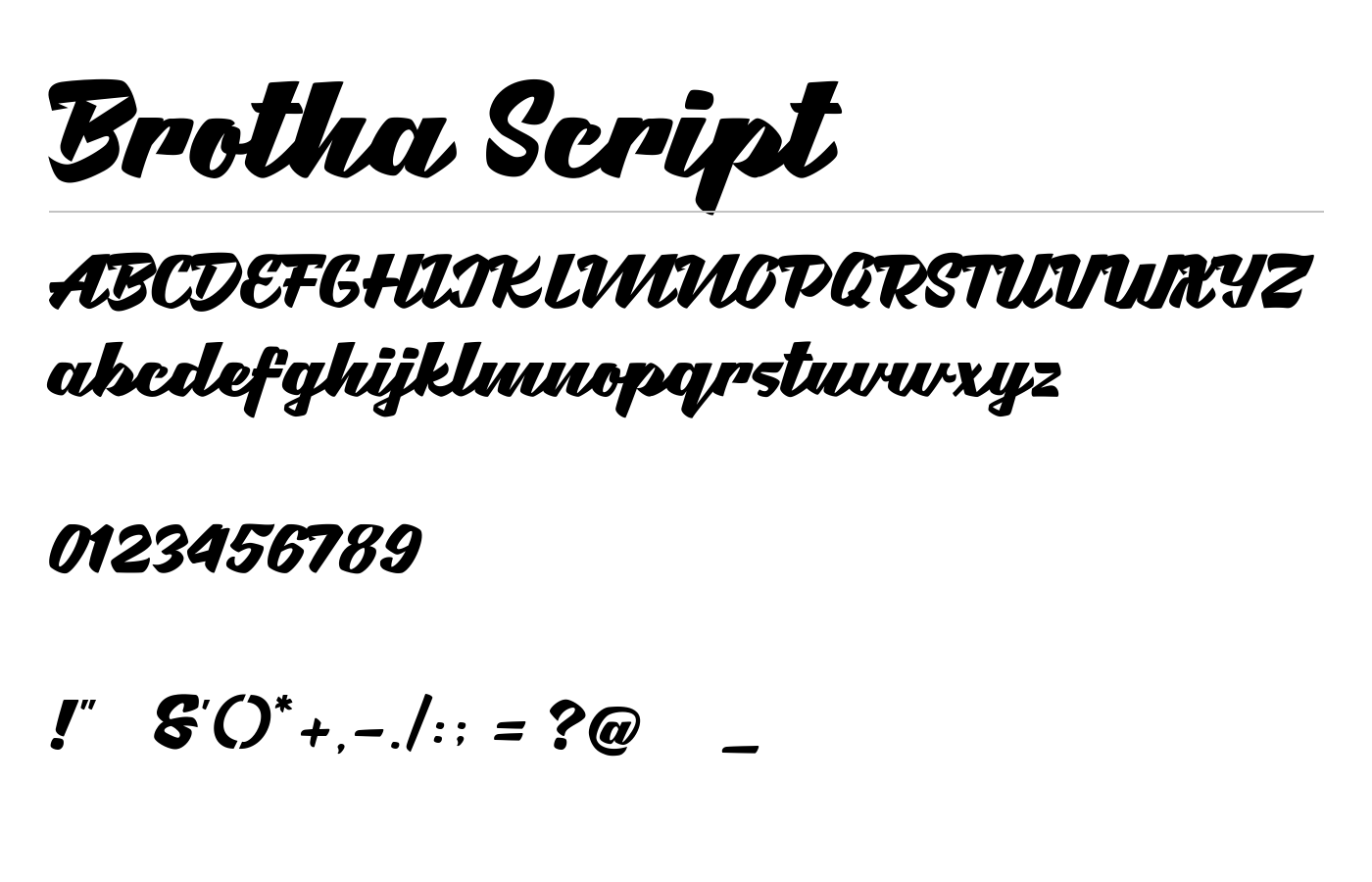
Brotha Script is a bold, energetic script font with a strong, modern flair. Its thick, slightly condensed letterforms and dynamic strokes create a feeling of movement and confidence, making it perfect for attention-grabbing headlines, logos, and branding that aim to convey a bold and stylish personality. This font works well in urban, sports, and lifestyle designs where a contemporary and playful yet powerful vibe is desired.
Brotha Script Font
About Brotha Script Font
| Font family | Brotha Script Font |